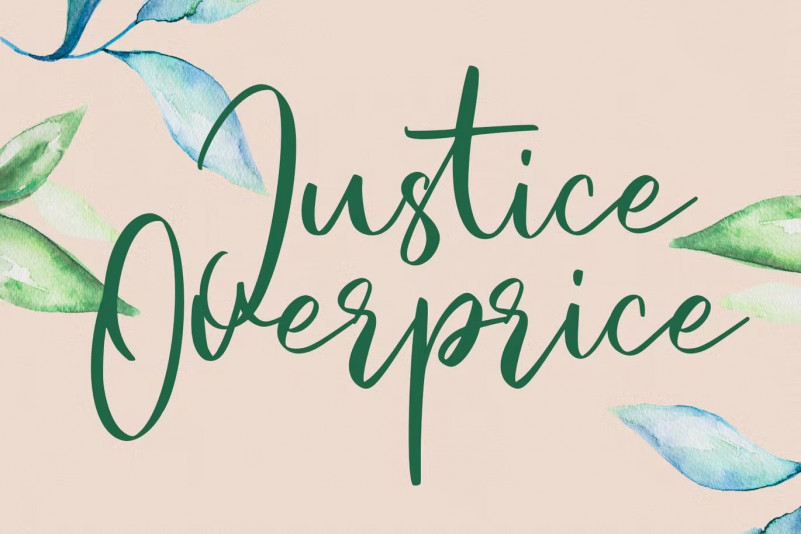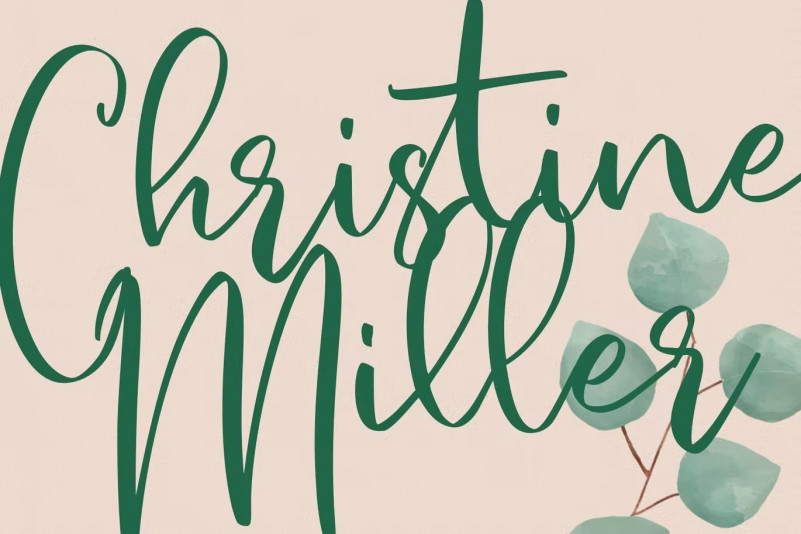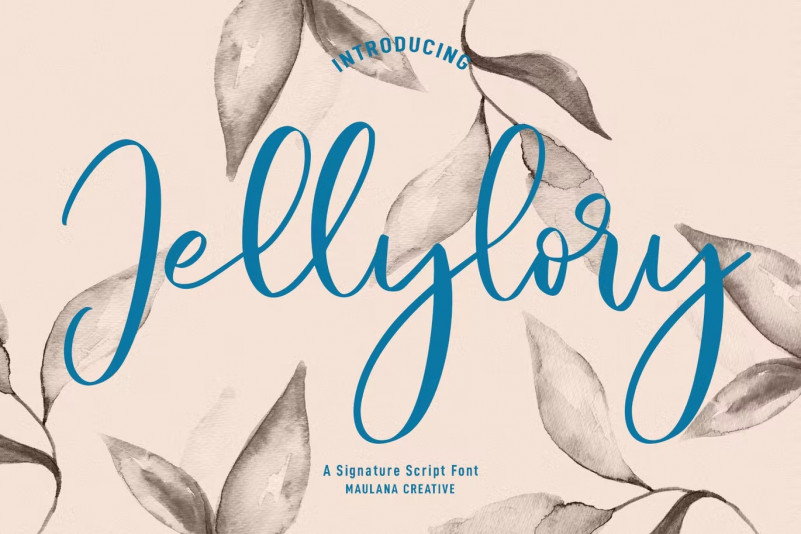
Jellylory Font
Jellylory is a fancy handwritten script font. With medium contrast stroke, fun character with a bit of ligatures and alternates. To give you an extra creative work. Jellylory font support multilingual more than 100+ language. This font is good for logo design, Social media, Movie Titles, Books Titles, a short text even a long text letter and good for your secondary text font with sans or serif. Make a stunning work with Jellylory font.